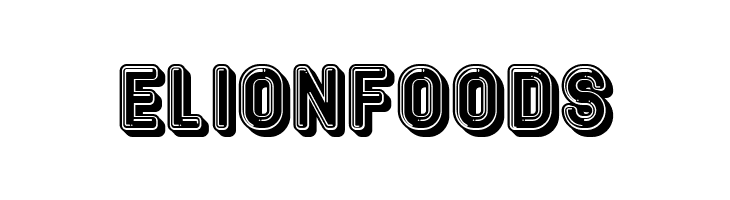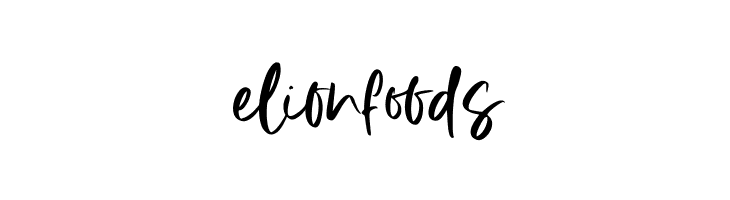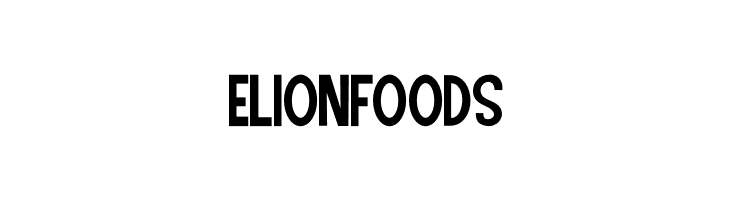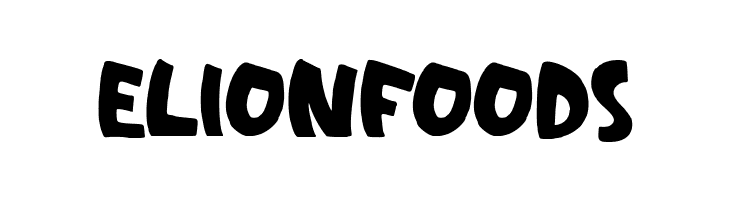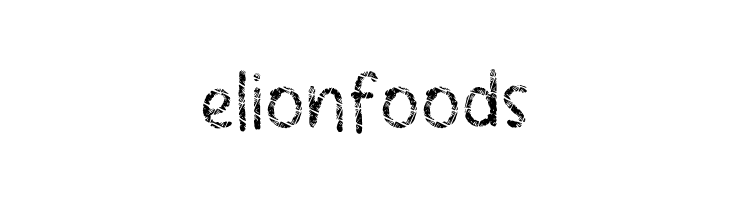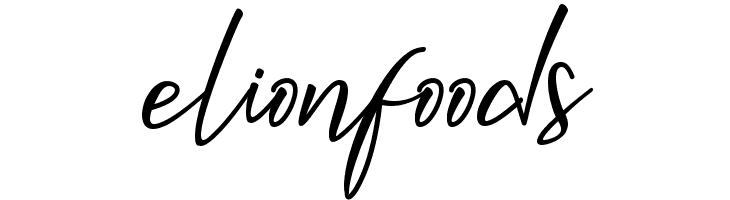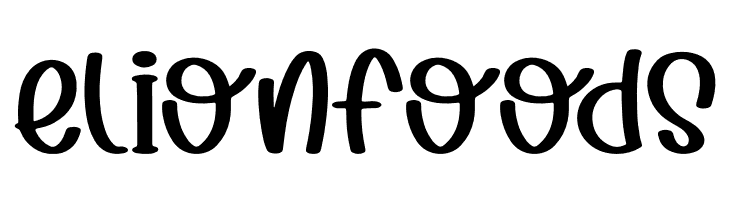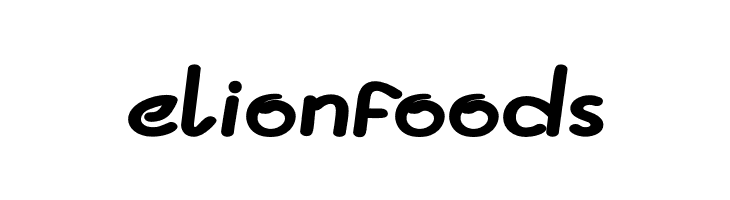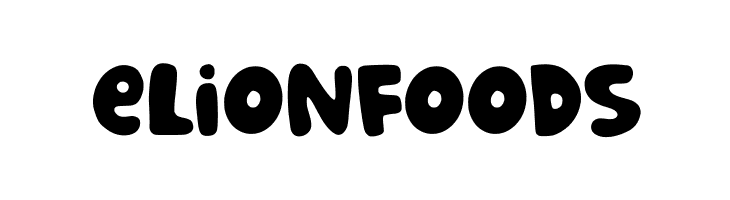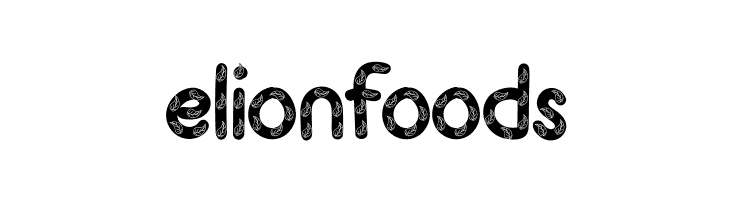
• Summer Folk
A playful, bold, and hand-drawn style with rounded edges.
• Summer Font Light
A light, elegant font with tall, narrow characters and a modern aesthetic.
• SUMMER FREE
A tall, narrow font with rounded edges and a modern, cohesive style.
• Summer Fruits Personal Use Reg
A bold, dynamic script font with fluid, connected letterforms and a hand-lettered calligraphy style.
• Summer Garden
A tall, narrow font with clean lines and a modern, elegant style.
• Summer Girl
Playful handwritten-style font.
• Summer Goals
Playful handwritten font with rounded edges.
• Summer Handwriting
• Summer Hellow Regular
Playful handwritten font with a casual style.
• Summer Holiday
A playful, bold, and rounded font with a whimsical style.
• Summer Holiday - Personal Use
A playful, bold handwritten font with a lively and friendly style.
• Summer Icons
Bold, playful summer-themed icon set with solid silhouettes.
• Summer in December
• Summer in the city
• Summer Ink
A playful, handwritten font with tall, narrow letters and a casual style.
• SUMMER KIDOZA
A playful, handwritten font with a casual and lively style.
• Summer Light
• Summer Lightning Demo
A bold, playful script font with flowing, energetic letterforms.
• Summer Like